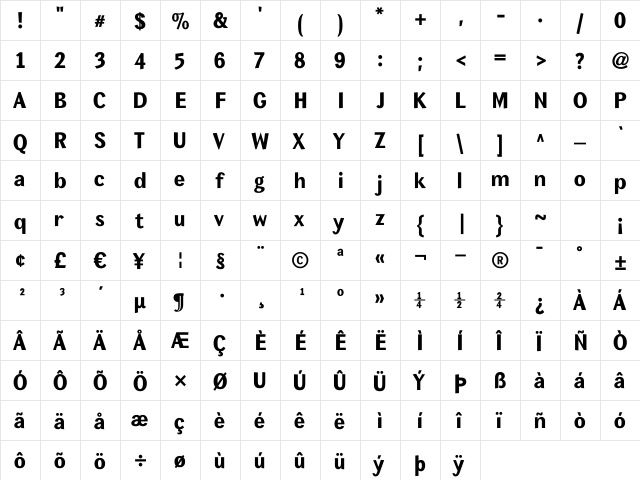
MexSansExtra Bold Regular
Design Context for MexSansExtra Bold Typeface
MexSansExtra Bold is a composed and adaptable typeface that performs quietly and consistently across a wide range of design contexts. The heavy weight commands attention and anchors typographic hierarchies.